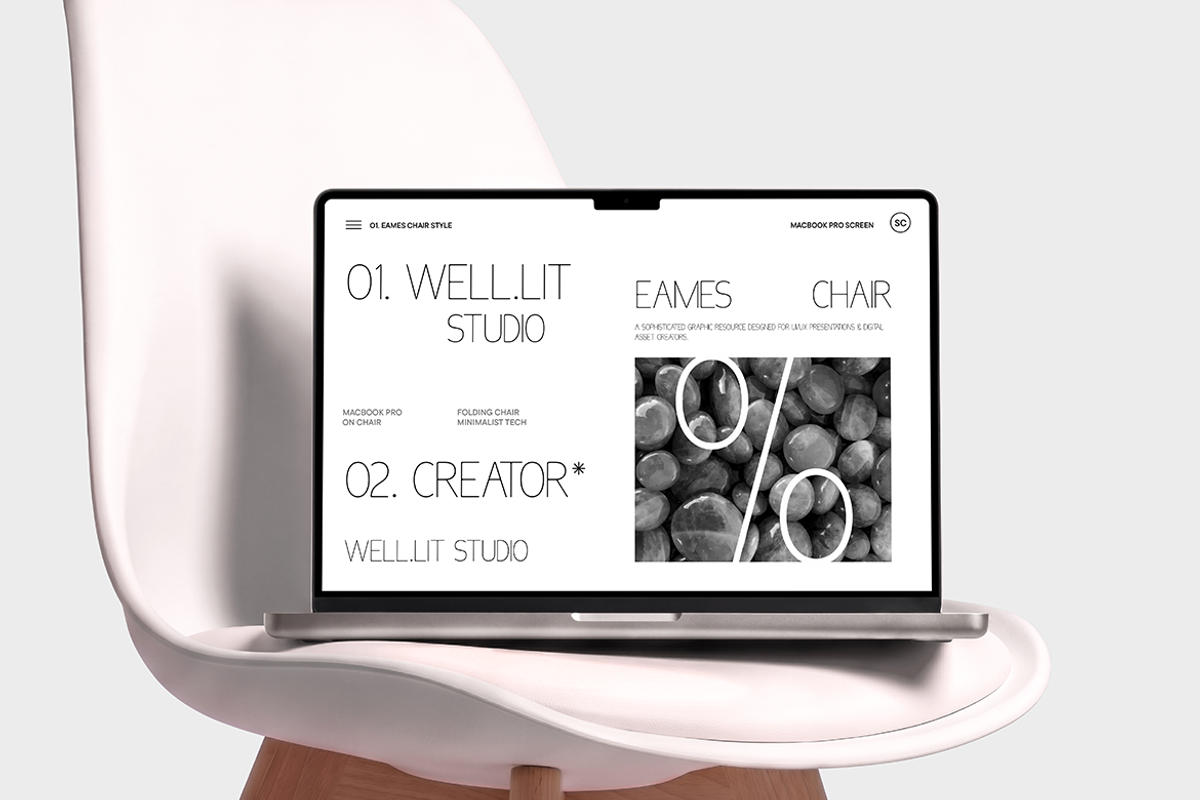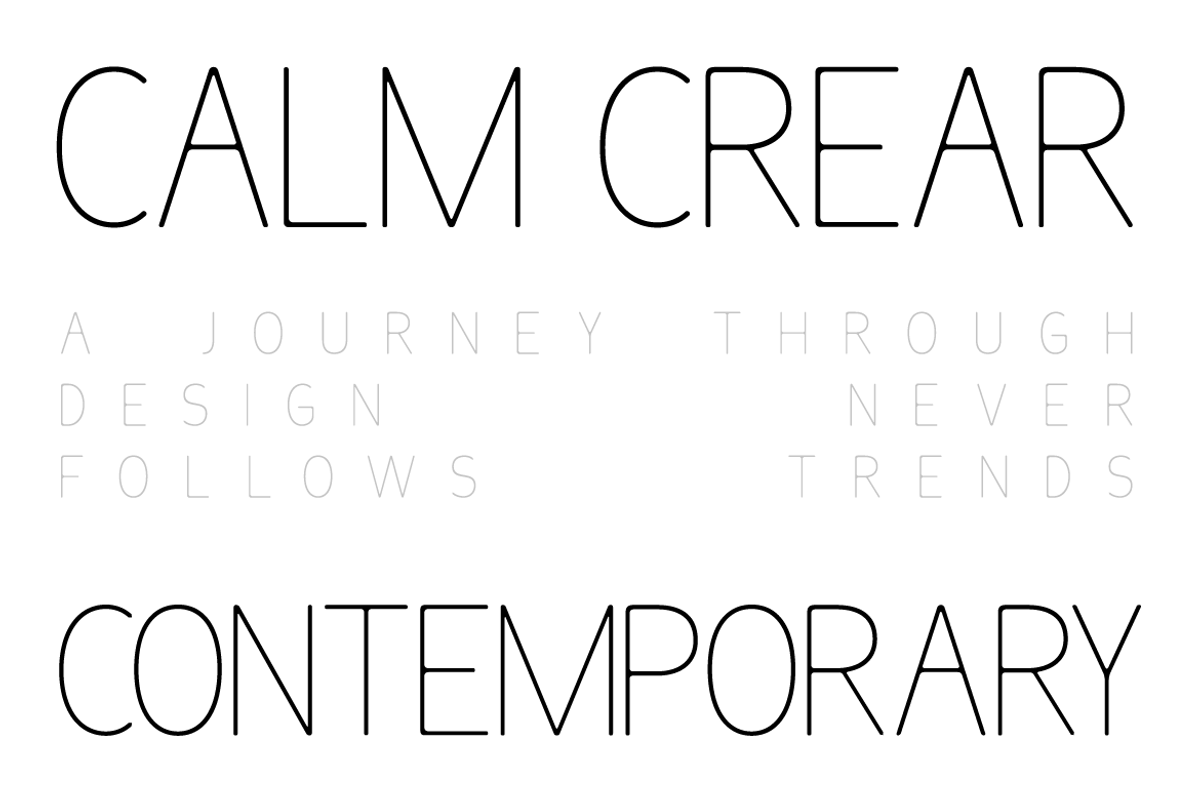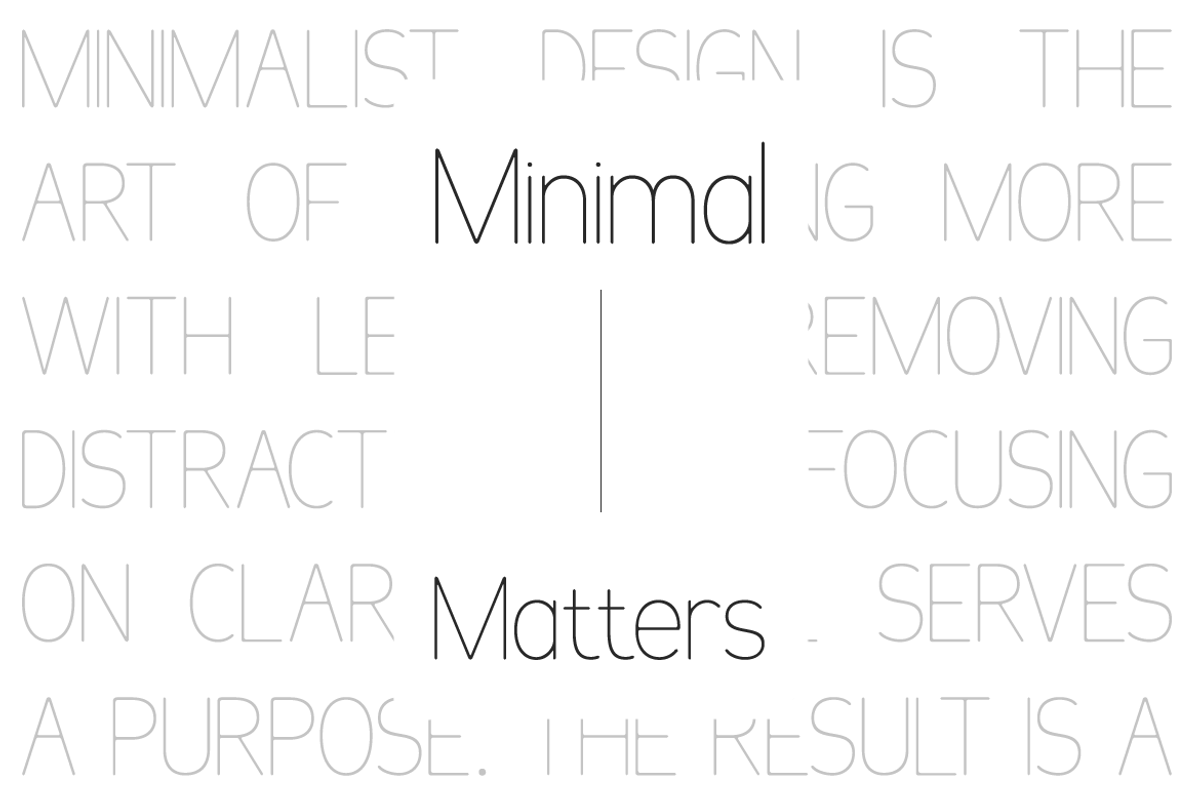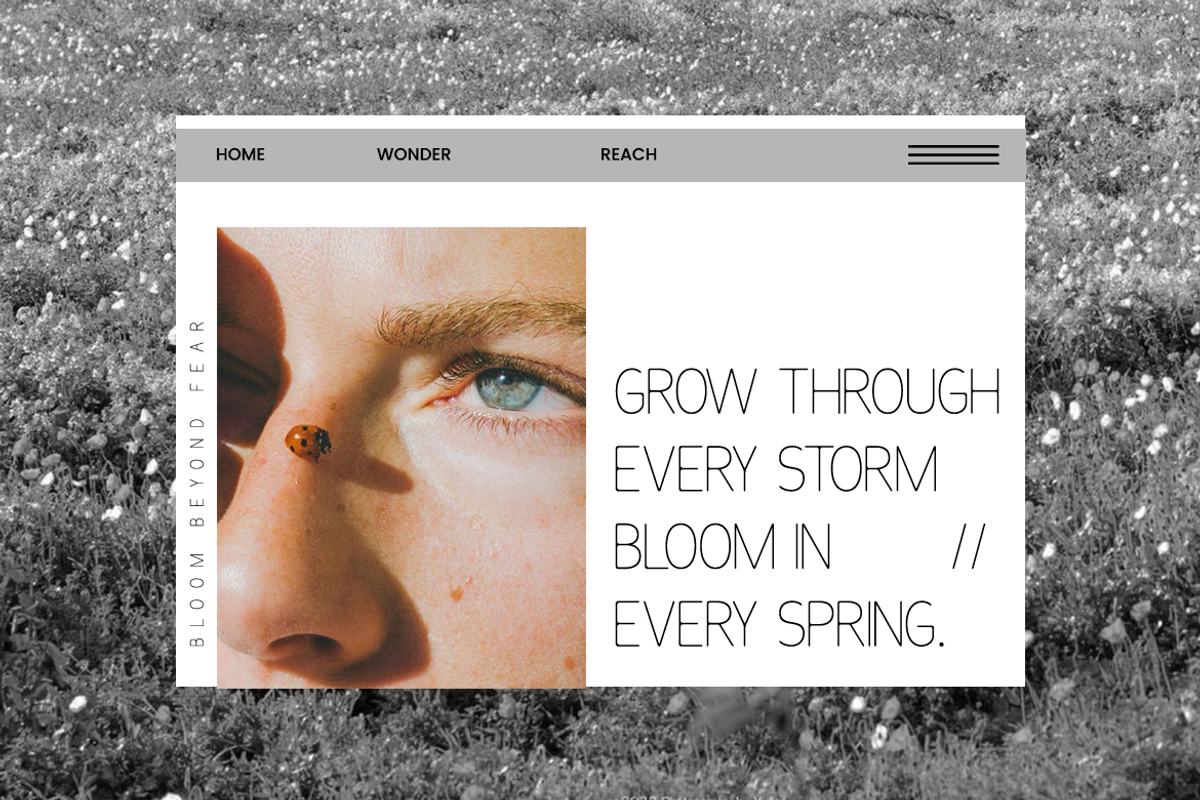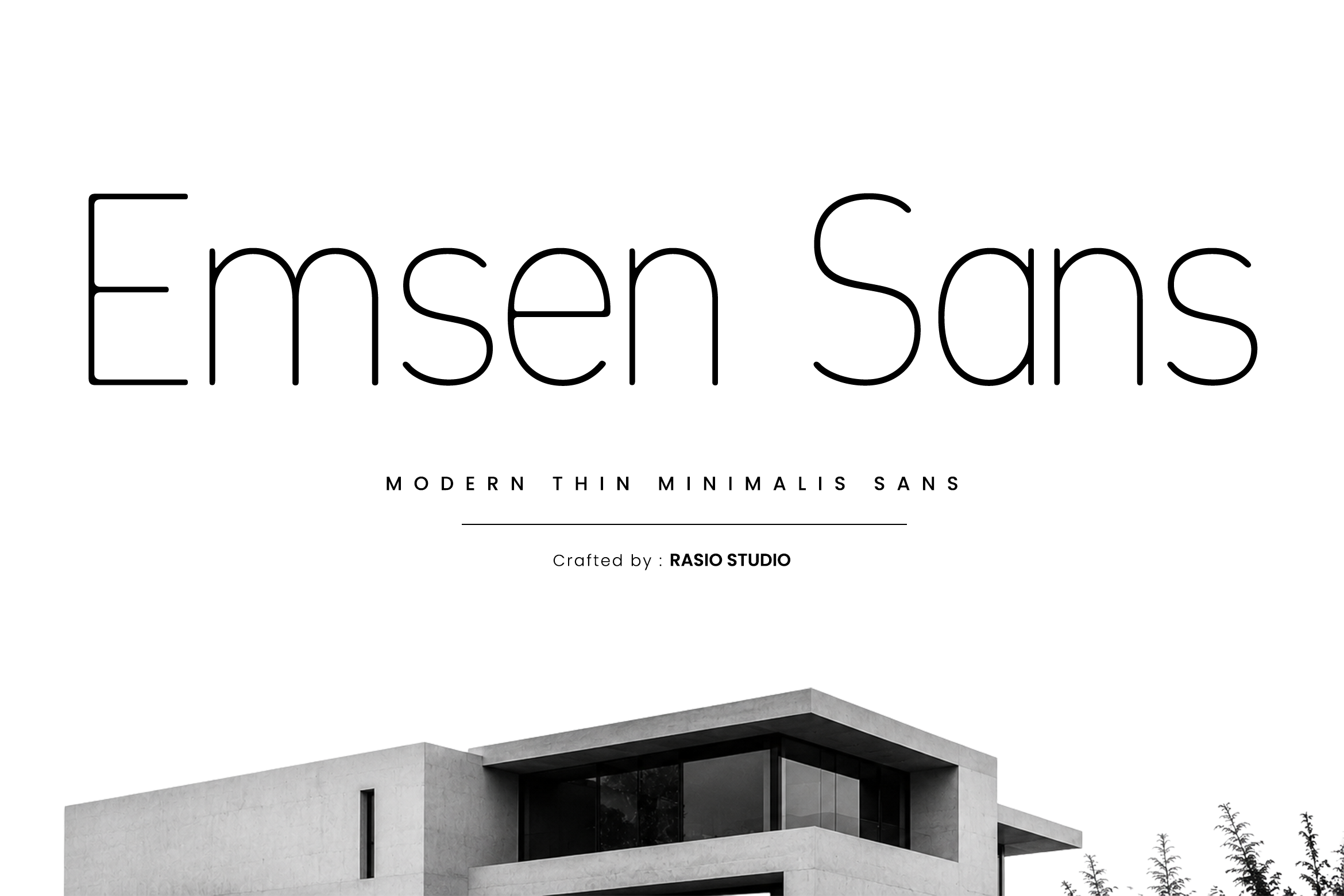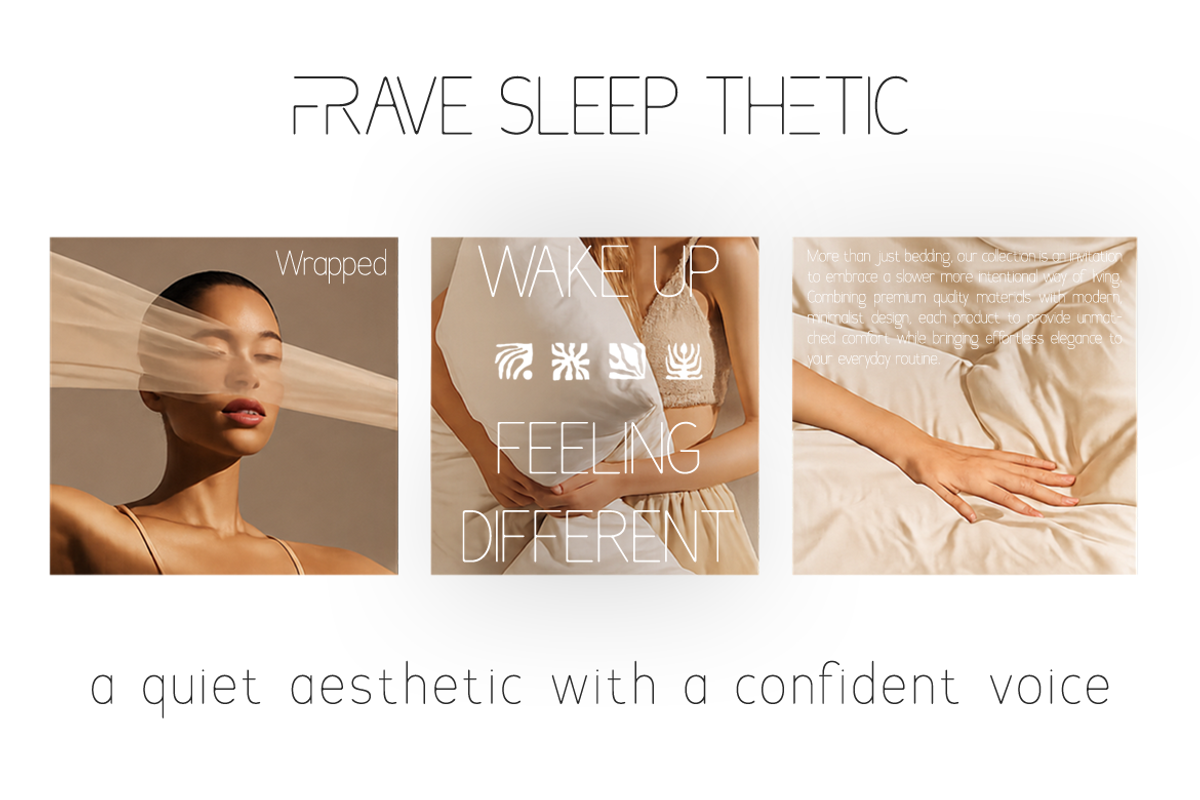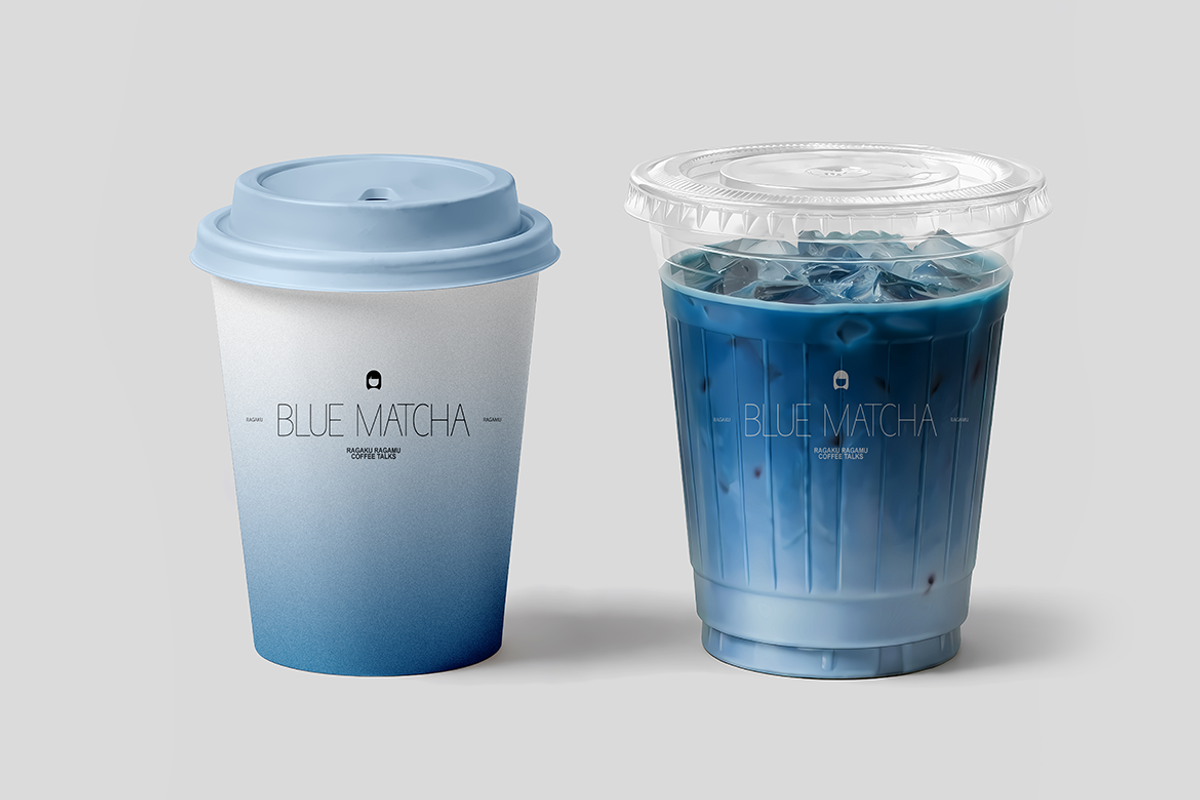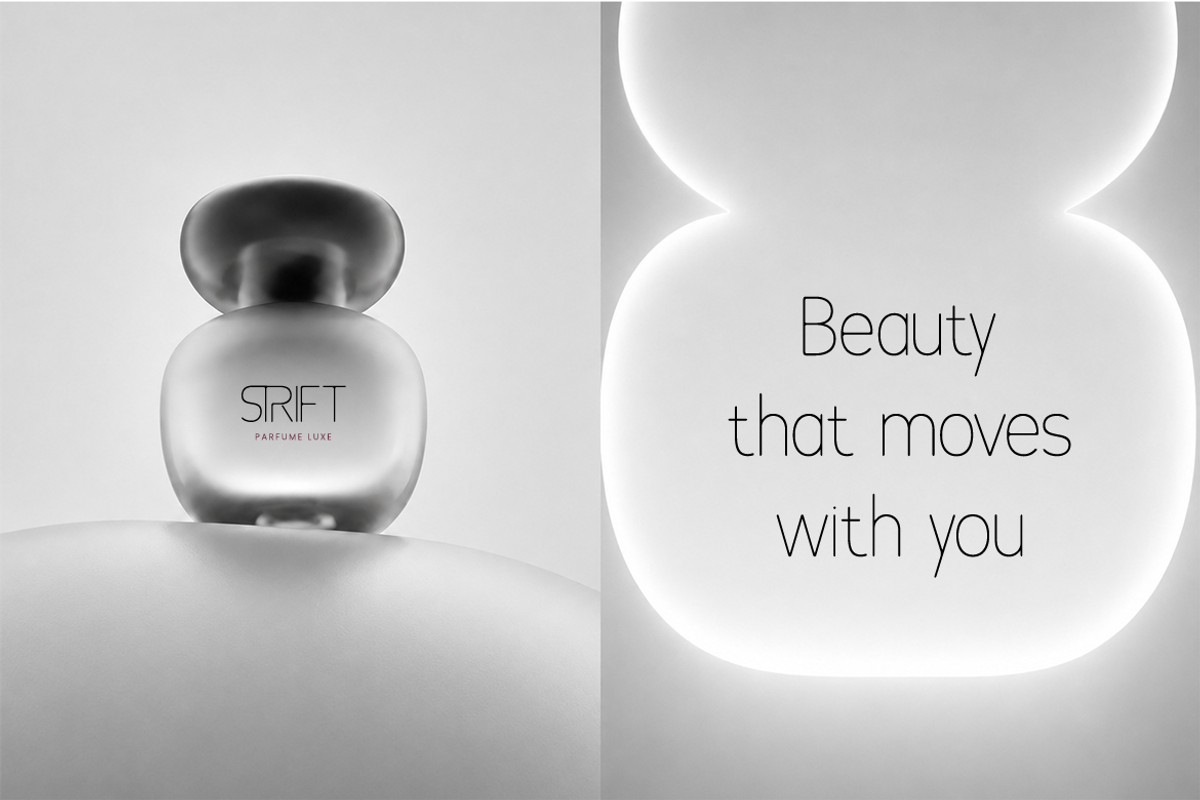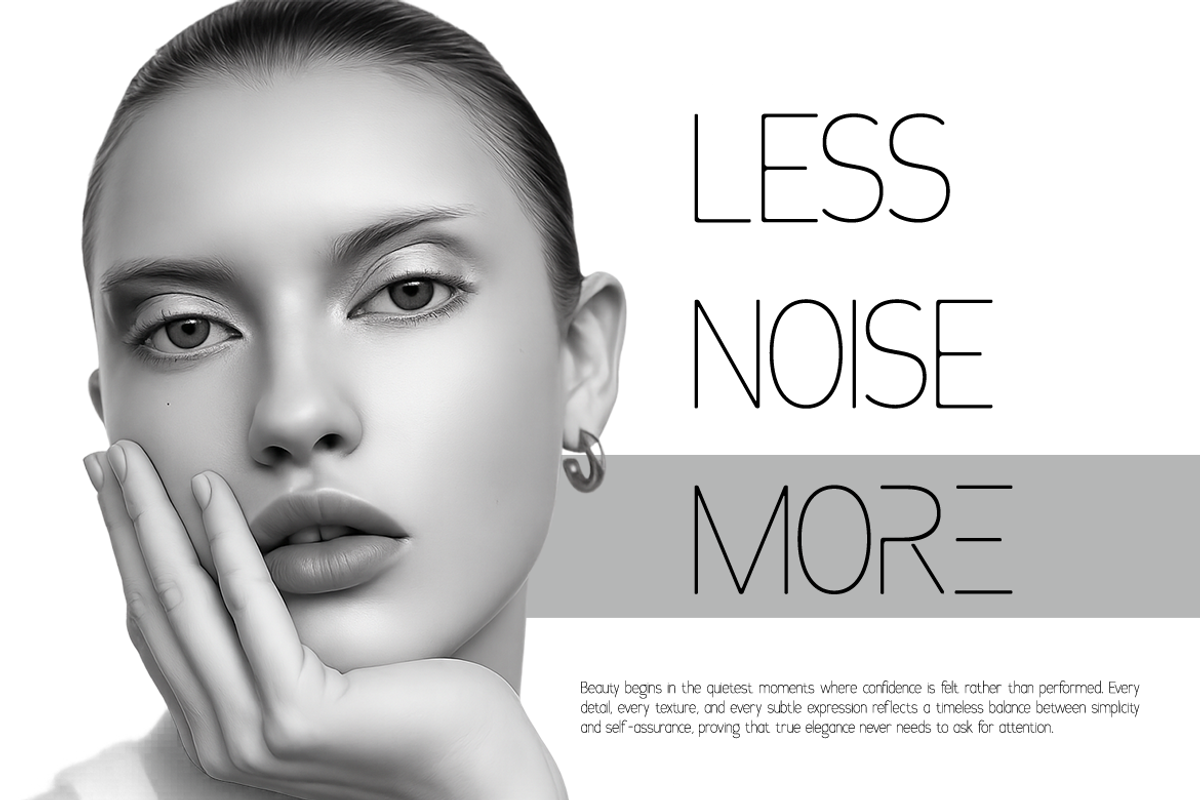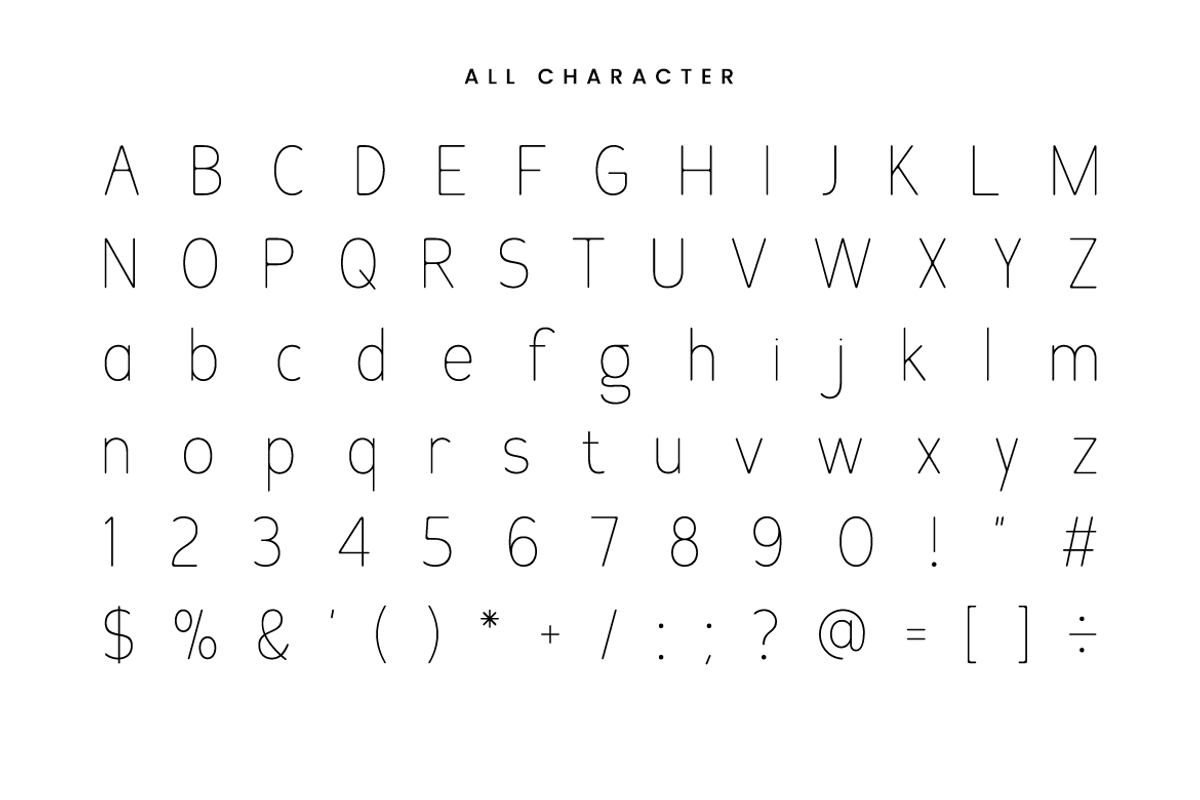
Emsen Thin Sans Serif Font
Emsen Thin Sans Serif Font is a modern minimalist sans serif typeface built around exceptionally thin strokes, clean geometry, and an airy visual rhythm. The letterforms have a delicate monoline appearance with open counters, simple terminals, and carefully restrained proportions, giving the family a lightweight and contemporary character. Its understated construction creates a sense of clarity and sophistication, making the typeface especially effective in designs where typography needs to feel refined without becoming visually dominant.
Emsen performs especially well in minimalist branding, architecture presentations, interior design graphics, editorial layouts, portfolio covers, lifestyle identities, fashion visuals, product campaigns, signage concepts, and contemporary advertising. Its restrained appearance can complement photography, architectural imagery, monochromatic compositions, spacious grids, and neutral color palettes. The font can be used as a large headline over an image, a carefully spaced brand name, a secondary caption, or a clean informational element within a structured layout.
Ultra-thin sans serif construction with a clean, minimalist appearance
Elegant elongated proportions that create a refined vertical rhythm
Lightweight strokes for an airy and contemporary visual impression
Smooth rounded curves that soften the overall geometric structure
Simple letterforms with generous negative space for a polished look
Minimalist brand identities requiring a clean, understated typographic presence
Fashion and lifestyle editorials where thin letterforms photography spacious layouts
Architecture and interior design materials that benefit from contemporary aesthetic
Luxury packaging and product labels seeking an airy, sophisticated visual direction
Beauty and skincare branding with elegant typography and a delicate appearance
Screen-optimized kerning for responsive web design
Supports numerals, punctuation, and extensive symbol set